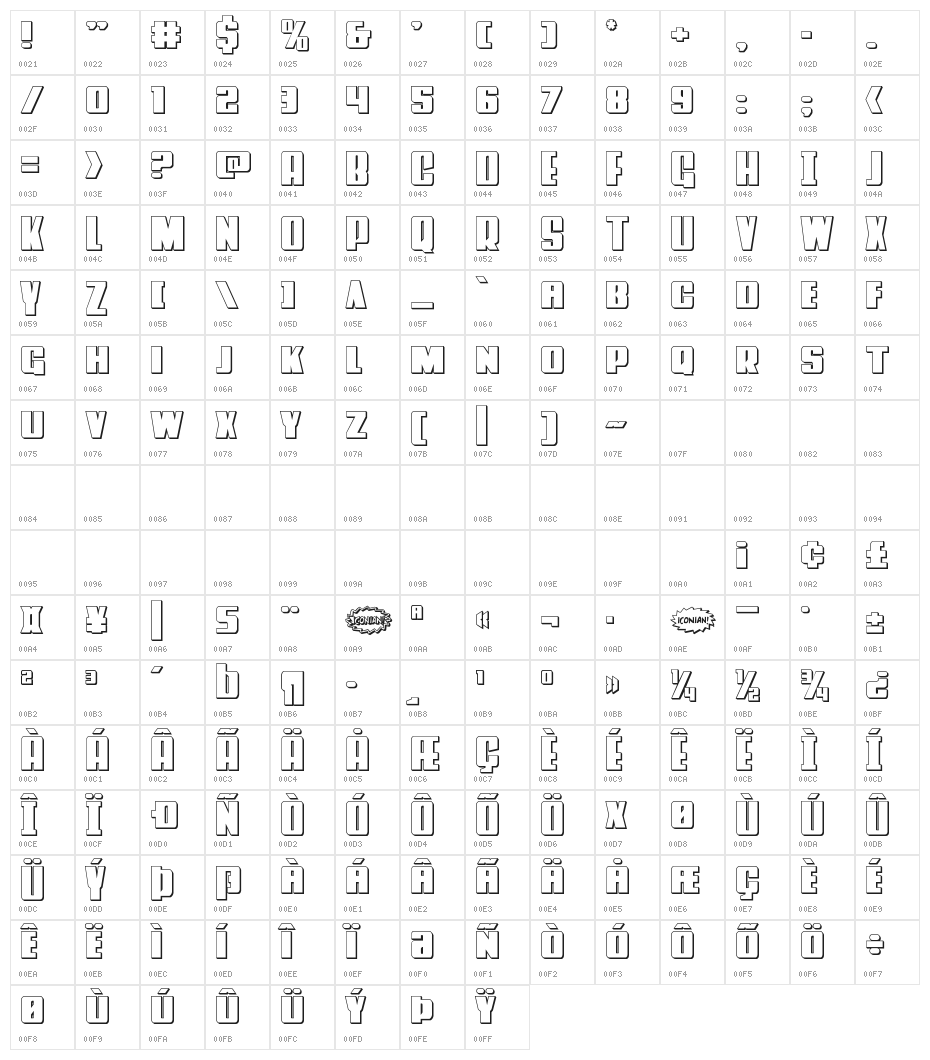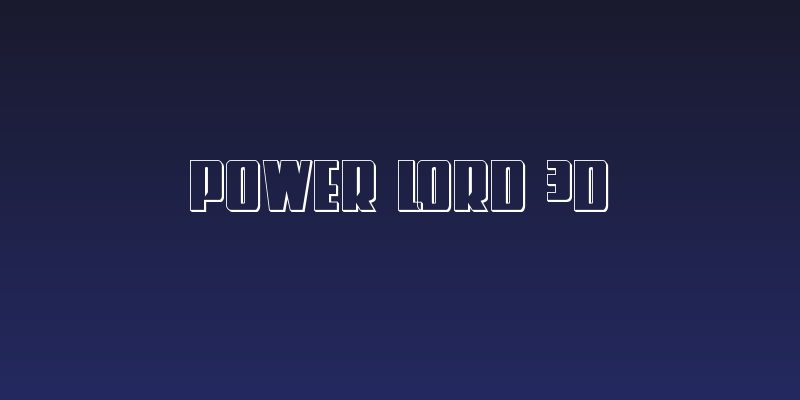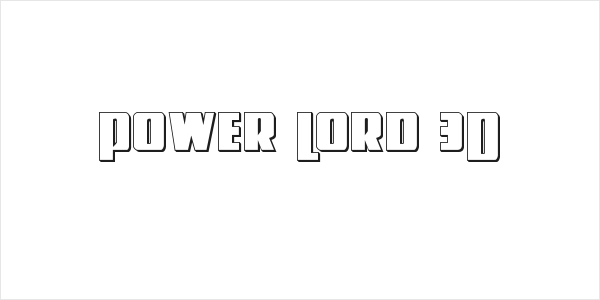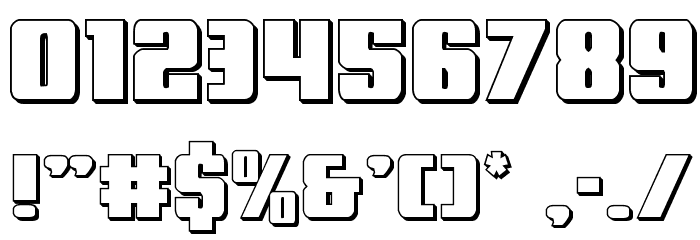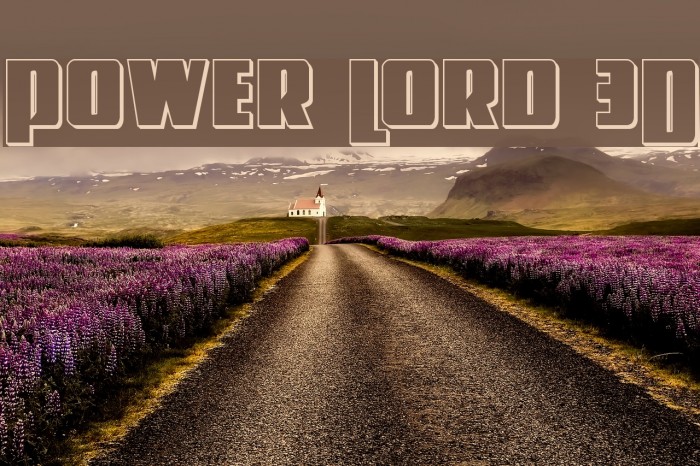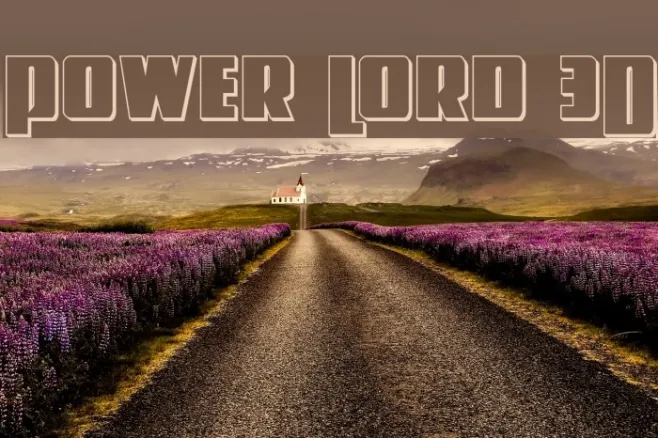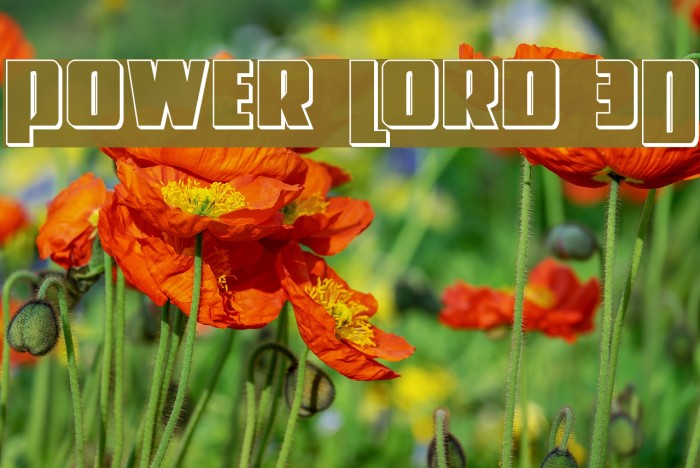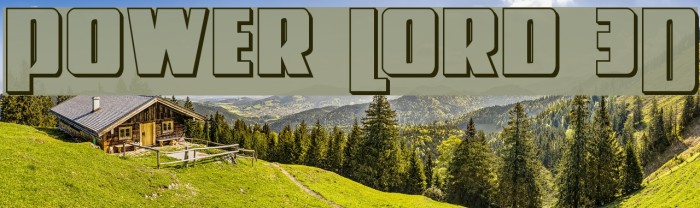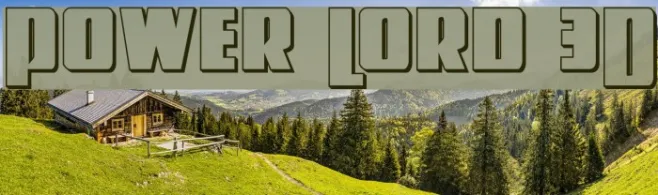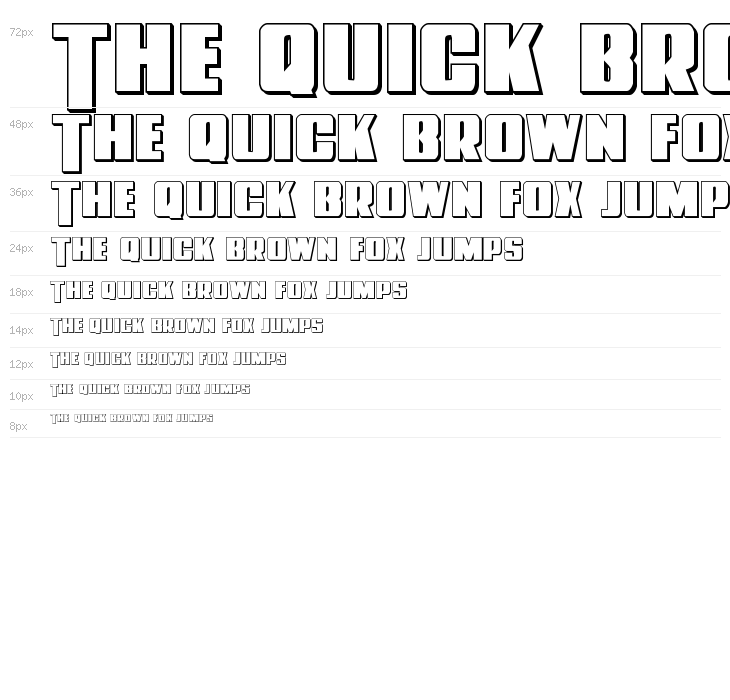
Power Lord 3D Font
Power Lord 3D Description
This font features a bold, three-dimensional style with a strong, impactful presence. The characters are outlined, giving them a distinct, shadowed effect that enhances their visual depth. The uppercase letters are uniform in height and width, creating a cohesive and structured appearance. The numbers and special characters maintain the same bold outline, ensuring consistency across all elements. This font's design is reminiscent of retro or vintage styles, often seen in arcade games or comic book titles, making it ideal for projects that require a dynamic and eye-catching look.
| Overall Style | Retro, Decorative |
| Proposed Projects | Ideal for video game titles, comic book covers, posters, and branding that requires a bold statement. |